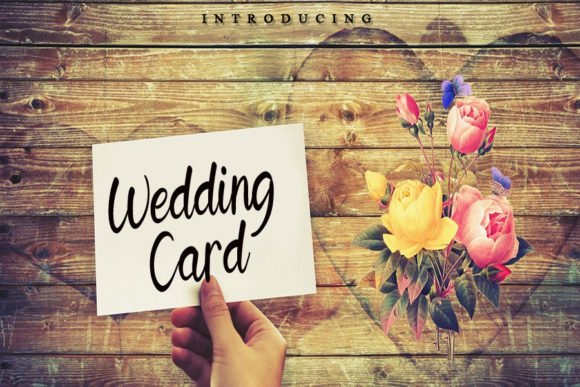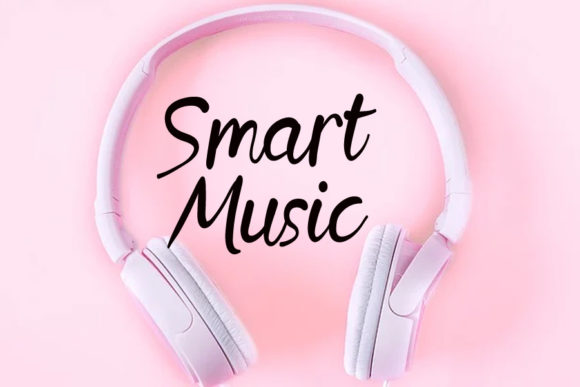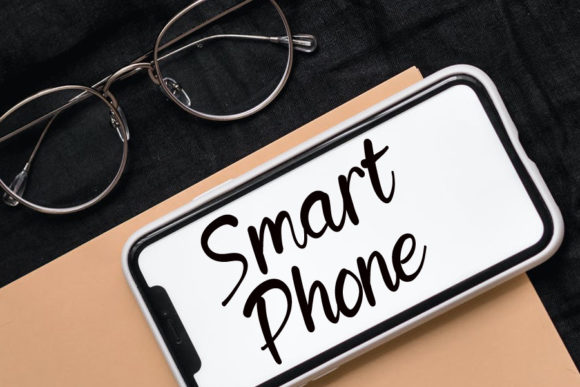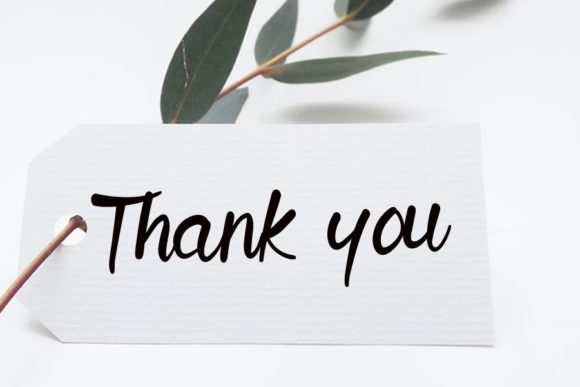
Discover the Elegance of Blackpink Font: Elevate Your Designs with Sophistication
In the realm of digital design, the right font can make all the difference. It can transform your project from ordinary to extraordinary, conveying your message with style and sophistication. If you’re on the hunt for a font that exudes freshness, beauty, and uniqueness, look no further than the Blackpink Font. This stunning typeface is not only aesthetically pleasing but also incredibly versatile, making it an excellent choice for a wide range of design purposes.
What is Blackpink Font?
Blackpink Font is a modern, elegant, and highly readable typeface that has captured the hearts of designers and crafters alike. Its clean lines, subtle curves, and balanced proportions make it a perfect blend of simplicity and sophistication. This font is inspired by the popular K-pop group Blackpink, but it has evolved into a unique and distinct typeface that stands on its own.
Uses of Blackpink Font
The versatility of Blackpink Font is one of its most compelling features. Whether you’re working on a personal project or a professional assignment, this font can be used in a variety of contexts, including:
- YouTube Banners: Create eye-catching banners that showcase your channel’s personality and style.
- Cover Logo Mockups: Design stunning cover logos that make your brand stand out.
- Wedding Invitations: Add a touch of elegance and sophistication to your wedding invitations.
- ID Cards: Create professional and stylish ID cards for your employees or members.
- Flyers: Design attention-grabbing flyers that effectively communicate your message.
- Crafts: Use Blackpink Font to add a personal touch to your craft projects, such as handmade cards, scrapbooking, and more.
Why Choose Blackpink Font?
So, what sets Blackpink Font apart from other fonts? Here are a few reasons why designers and crafters love this font:
- Unique and Simple: Blackpink Font boasts a distinctive style that’s both simple and unique, making it perfect for designs that require a touch of elegance.
- Fresh and Beautiful: The font’s clean and modern design makes it incredibly fresh and beautiful, adding a touch of sophistication to any project.
- Good for Business: Using Blackpink Font can help take your business to the next level by providing a professional and stylish look.
Tips for Using Blackpink Font
To get the most out of Blackpink Font, here are a few tips to keep in mind:
- Pair it with Other Fonts: Experiment with pairing Blackpink Font with other fonts to create a unique and visually appealing design.
- Use it for Headings: Blackpink Font works beautifully as a heading font, making it perfect for titles, subtitles, and headings.
- Adjust the Size: Don’t be afraid to experiment with different font sizes to create visual hierarchy and emphasis.